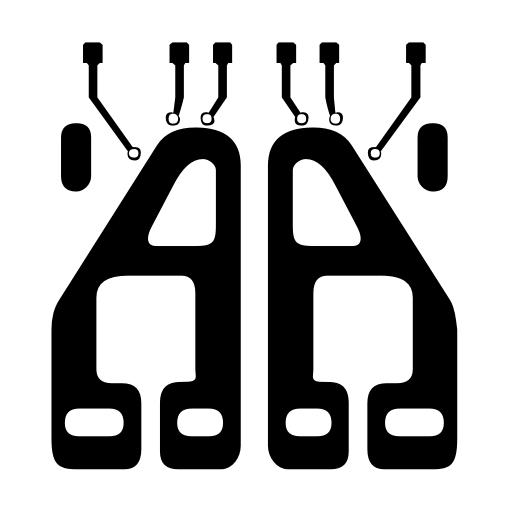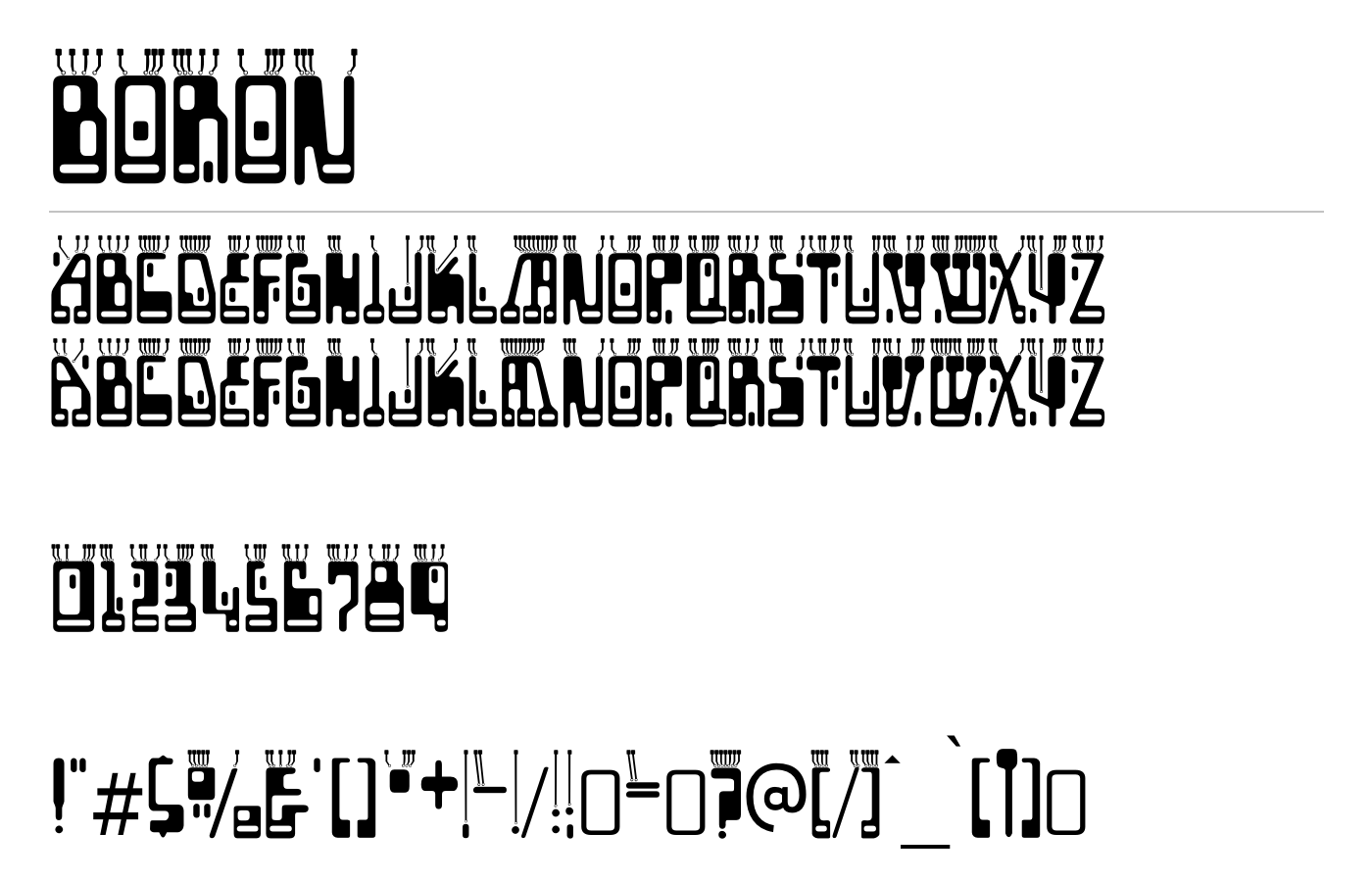
Boron is a bold, condensed sans serif font with a futuristic and tech-inspired design, featuring geometric shapes and unique decorative elements resembling circuit board connections. Its high contrast in stroke thickness and square-like letterforms give it a modern, edgy personality that suits technology, gaming, and sci-fi branding or headlines. This font works best in logos, posters, and display settings where its distinctive style can make a strong visual impact.
Boron Font
About Boron Font
| Font family | Boron Font |
| Designer | Raymond Larabie |